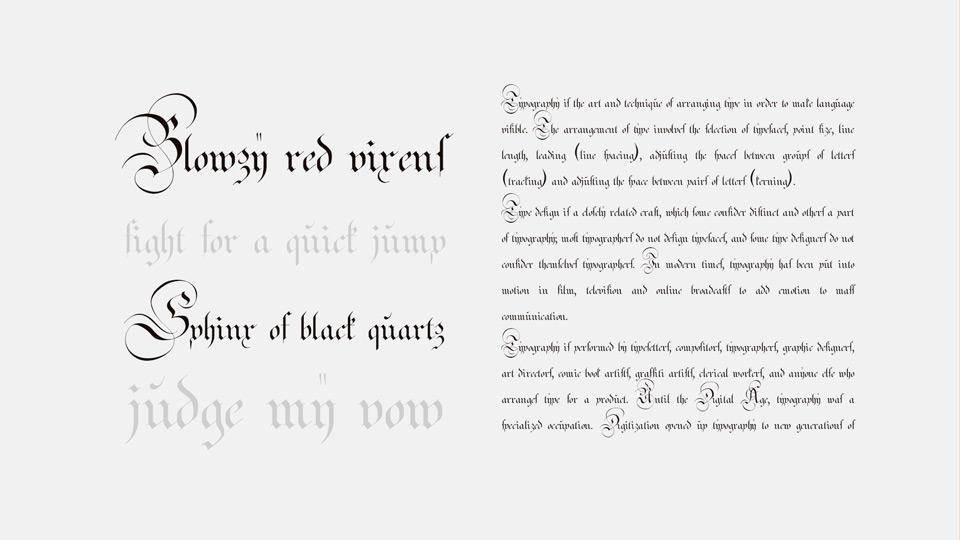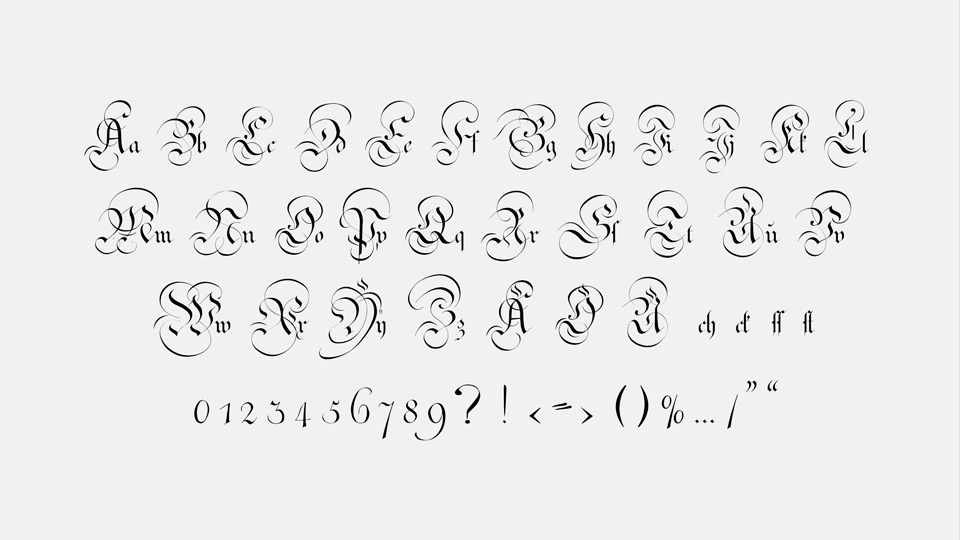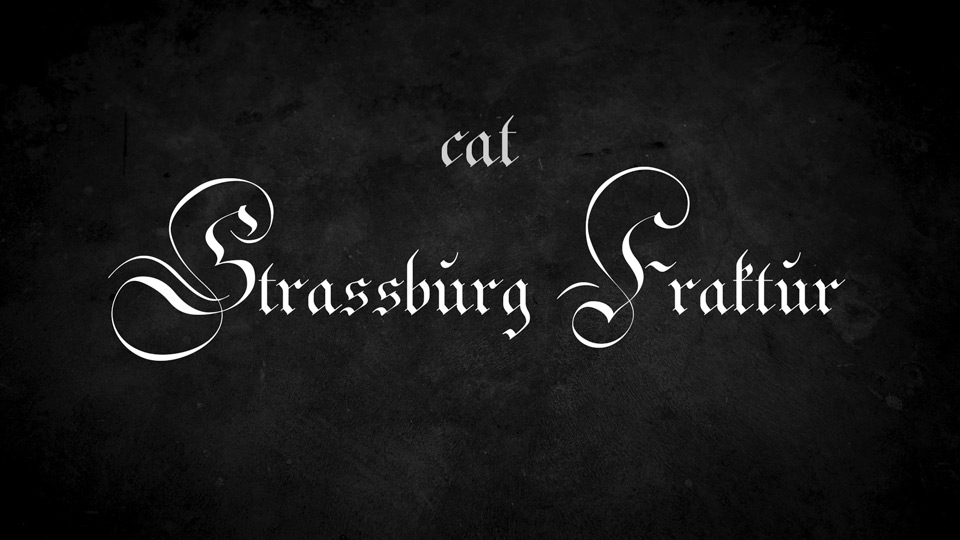
Strassburg Fraktur Font
Strassburg Fraktur is a ornamental blackletter typeface. This font is not a typical print fraktur, but a handwritten variant – and of course this font is also suitable for printing templates for your own works with pen and ink.